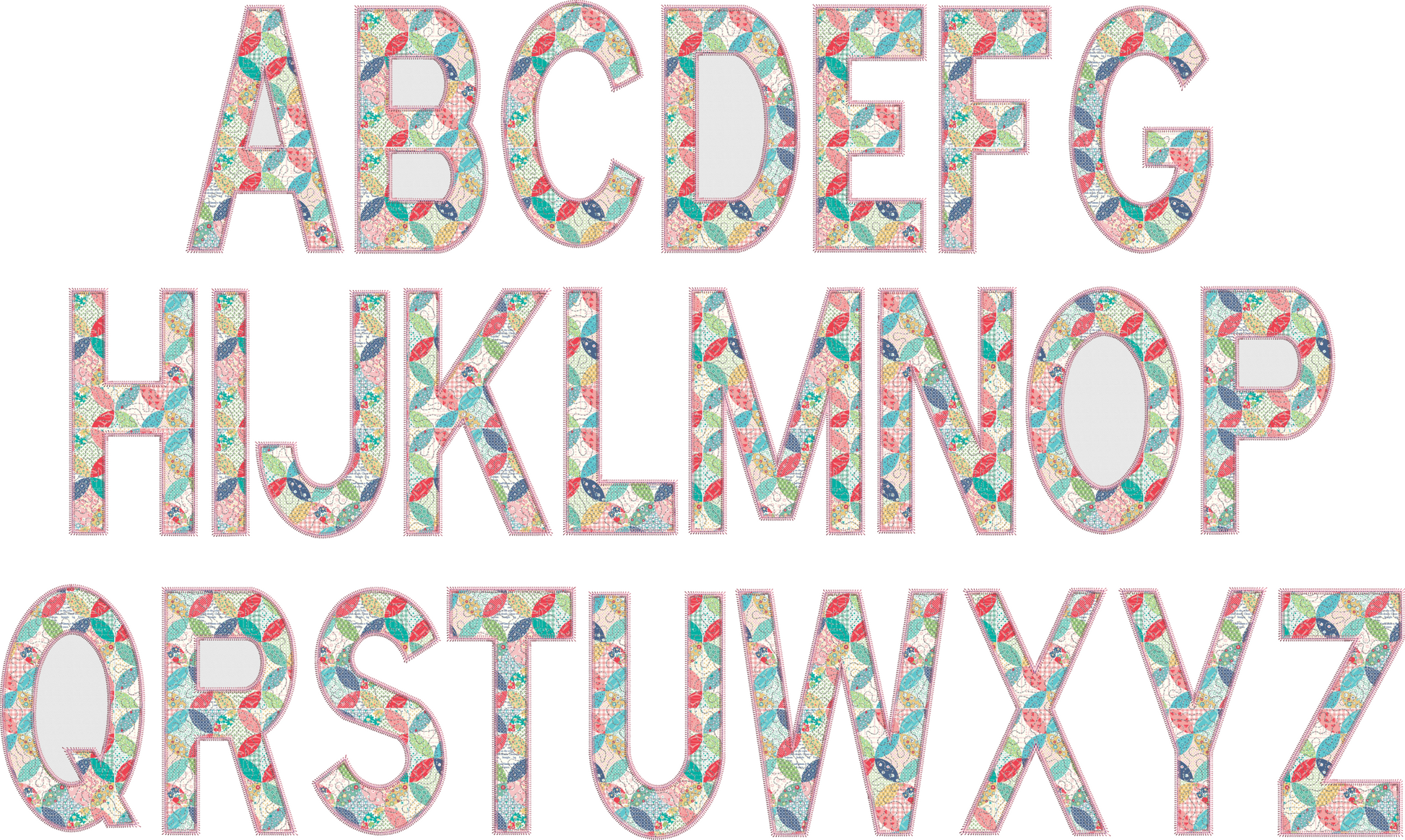
Nana's House Quilted Solid Font
Zig Zag Font Applique Design
Placement and tackdown stitch for batting to give the quilted feel in the first two steps before the patchwork applique pieces.